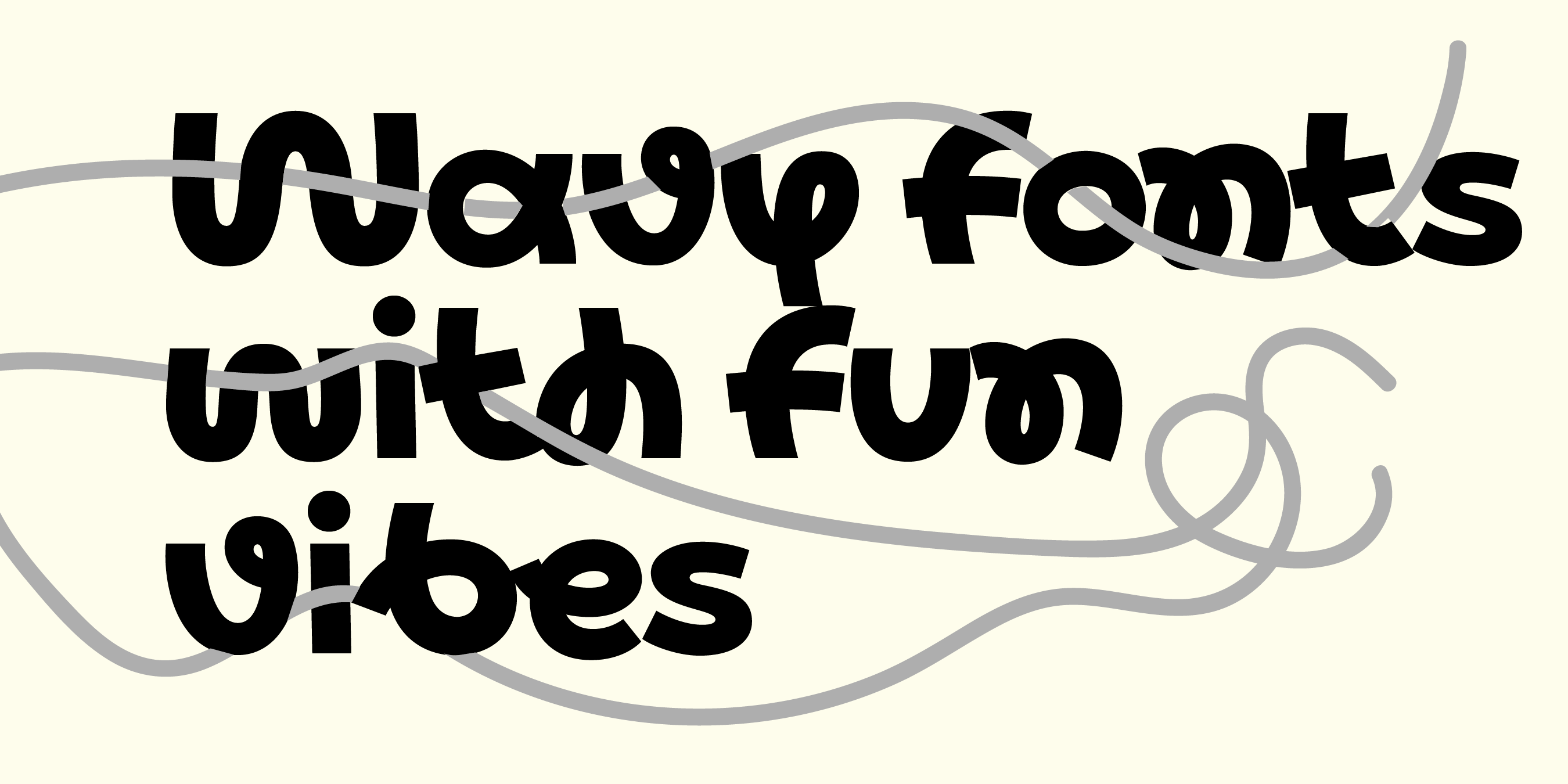
Wavy fonts give a fun personality to logo designs and headlines. Whether you’re looking for a typeface with an overall wavy contour or one whose letters recreate a sound wave-like design, this list covers our favorite wavy fonts for playful, modern branding.
Fun & Groovy Typefaces
1. Auria Sans – Wavy, Airy Sans Font For Unique Branding
Auria Sans is a modern sans font designed for logos and text. Clean shapes and rounded ink traps give it a wavy, airy character without turning decorative. Alternate glyphs (including multiple r terminals and rounded alternates for letters like A, M, and W) make it easy to fine-tune a unique brand voice.
2. Lace Regular – Ribbon-Like Monolinear Summer Font
This first typeface, Lace Regular, is a monolinear (strokes have the same thickness) font that resembles a smooth rope or ribbon appearance. It’s a friendly font that is an excellent fit for summer designs—with warped bars and terminals blowing in the wind (compare the horizontal stroke of letter f and terminal of letter r).
3. Skay – Groovy Bubble Font For Bold Logotypes
Skay—in very bold weights like Black—is a font best used for groovy logotype. Skims uses a similar font. Paired with a muted, warm color palette, it creates a retro look through its fluid, smooth brush design. The typeface feels soft and bubbly because of its bloated roundness and dynamic due to its irregular letter axes.
4. Cesty – Friendly Rounded Display Font For Logos And Packaging
Cesty is a bold, rounded display font with a friendly feel. Heavier weights look soft and full, while lighter styles bring a springy, open character—great for logos, posters, packaging, menus, and brands that want something bold but approachable.
5. Kijs – Naturally Curvy Serif With Alternate Brush-Style Letters
Kijs is one of my favorite fonts to use these days because of its versatility. This font comes with alternate letters that are more brush style and additionally with regular serif glyphs that you can swap with the more organic defaults. While it may not have an innate wavy typeface design, setting text in Kijs Bold (or bolder) creates a natural, curvy appearance due to italic-like and brush-style letter details (compare letters B and R and the ampersand as well).
6. Pout – Unique Reverse-Contrast Display Font With Whimsical Energy
While Pout may not be as versatile as Kijs and some other wavy fonts, the typeface has the power to make your display designs, like logos and headlines, look unique. The typeface gains its whimsical look through being a reverse-contrast font where the horizontal strokes are thicker than the vertical stems. This display font also has many stylistic sets that allow you to pick from various glyphs, for example, a curvier r or w.
Classic Curvy & Rounded Modular Fonts
7. Bauhaus Bau – Rounded Modular Font For A Retro Look
Bauhaus Bau is a classic font for a retro look that’s also easy to stack, here shown in ExtraLight and Bold. Depending on the letters you use for your design, this typeface can also create a wavy outlined shape of text.
8. Vole – Fluid Inner Counters For A Wavy, Water-Like Feel
The Vole typeface calls for particular applications, such as fun logotype, but the rare look of its inner counters being wavy makes this font an easy consideration. The bolder weights of Vole create a fluid, very curvy design, especially when the letter spacing is tight.
9. Lace Rounded – Friendly Rounded Version For Modern, Personal Designs
Lace Rounded is the rounded version of Lace, giving this type a friendlier look. It looks great in all caps and with a thinner font weight—modern and simple, but still personal. Its smooth outline also makes it a strong fit for Cricut projects.
10. Swav Display – Geometric Wavy Typeface With Futuristic Sound-Wave Energy
Swav Display is a new, monolinear typeface—all angled strokes are +/-22.5 degrees tilted, making this type perfect for wavy logotype and headline text. Swav is geometric in its structure and futuristic in appearance. Depending on the glyphs used, Swav can create a retro-groovy 80s and 90s look. For example, Swav is similar to the NASA font if you’re looking to design logos and texts in that style.